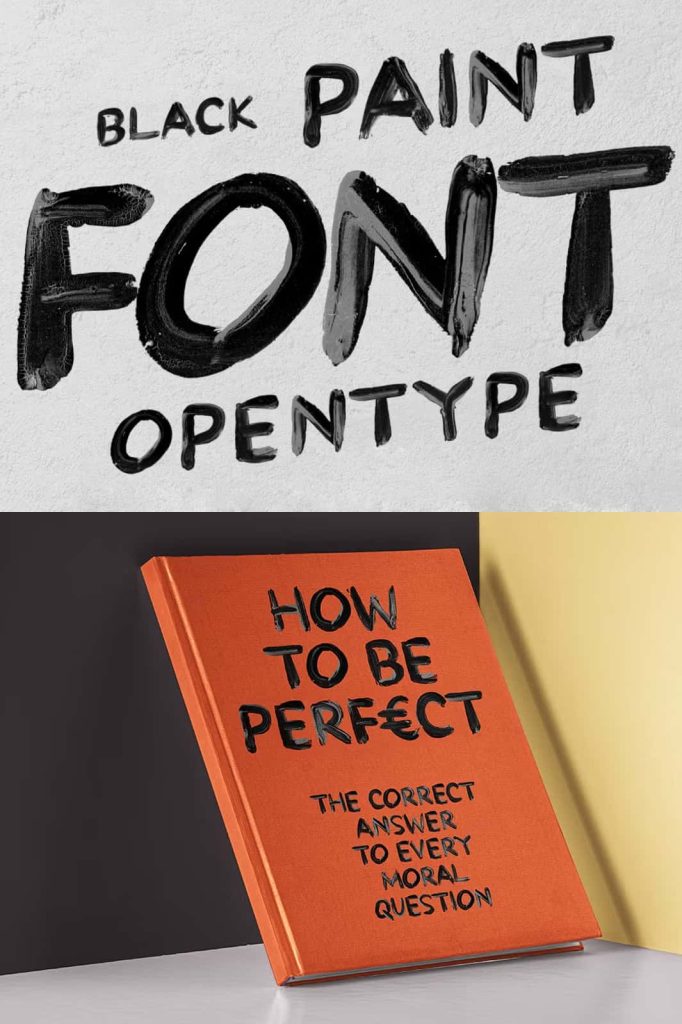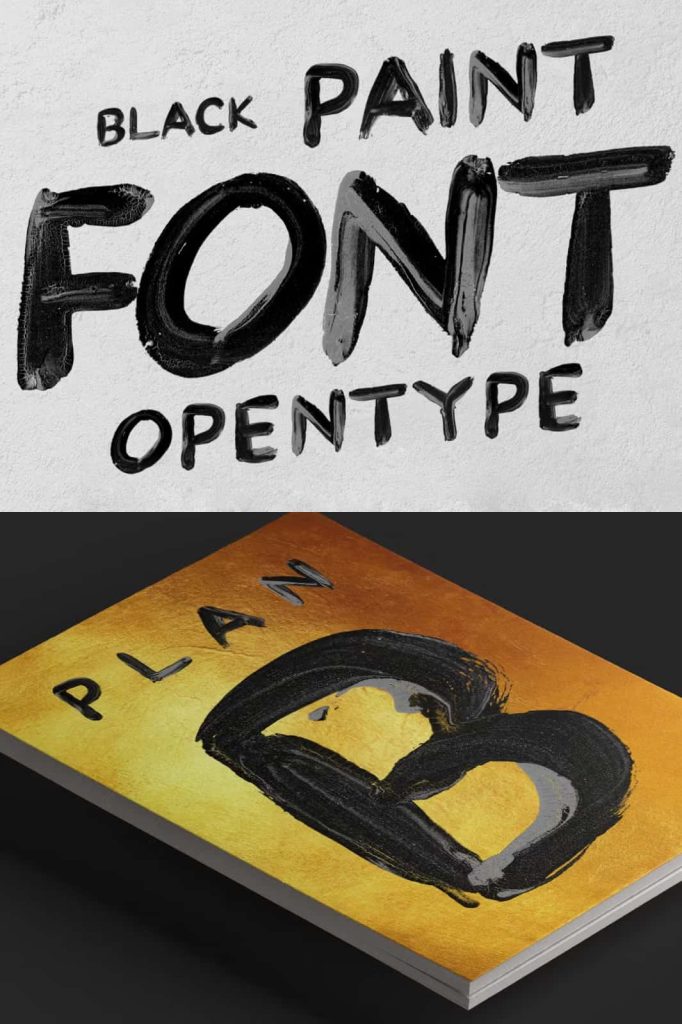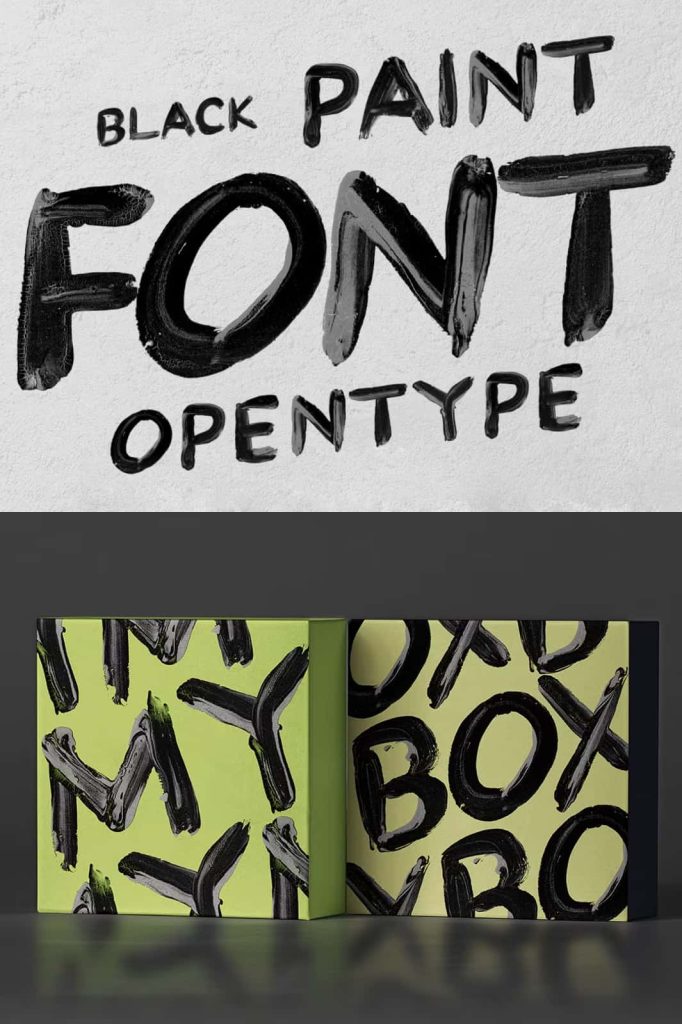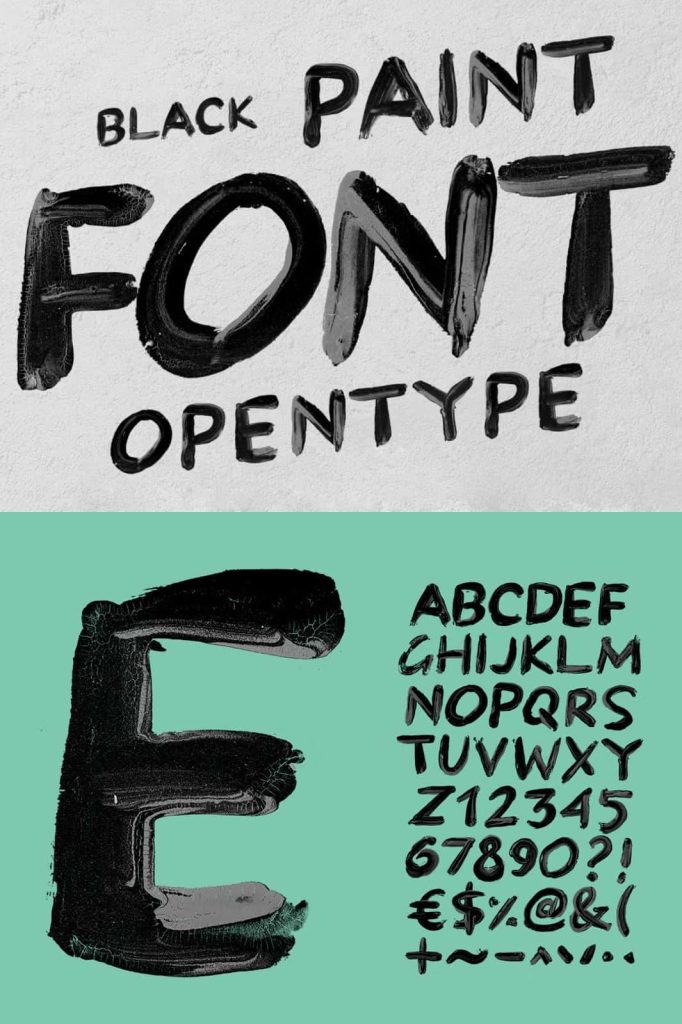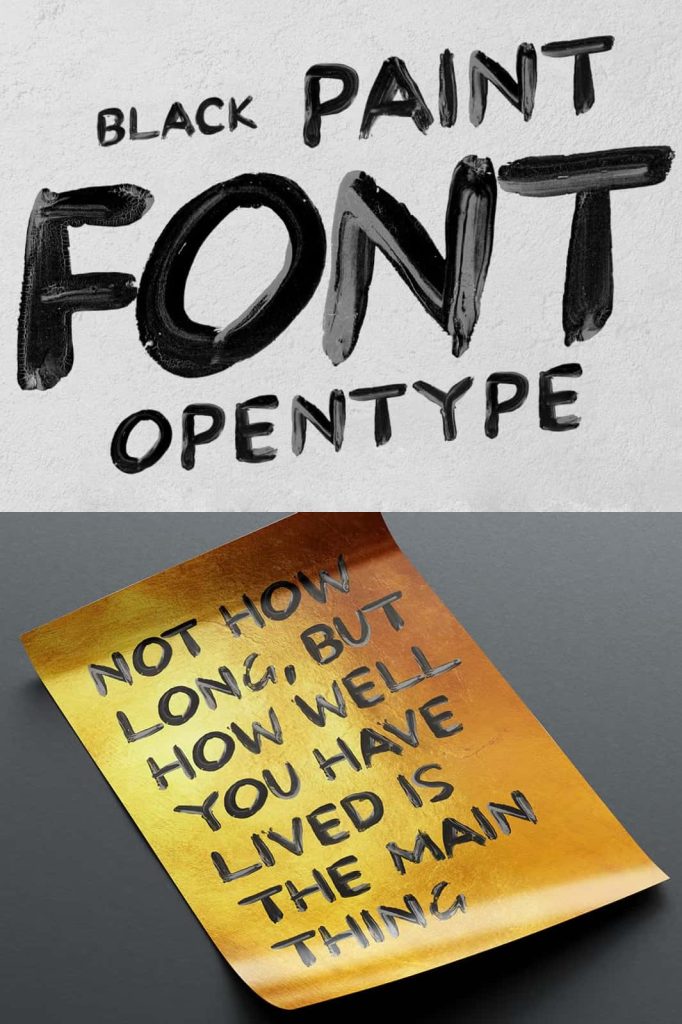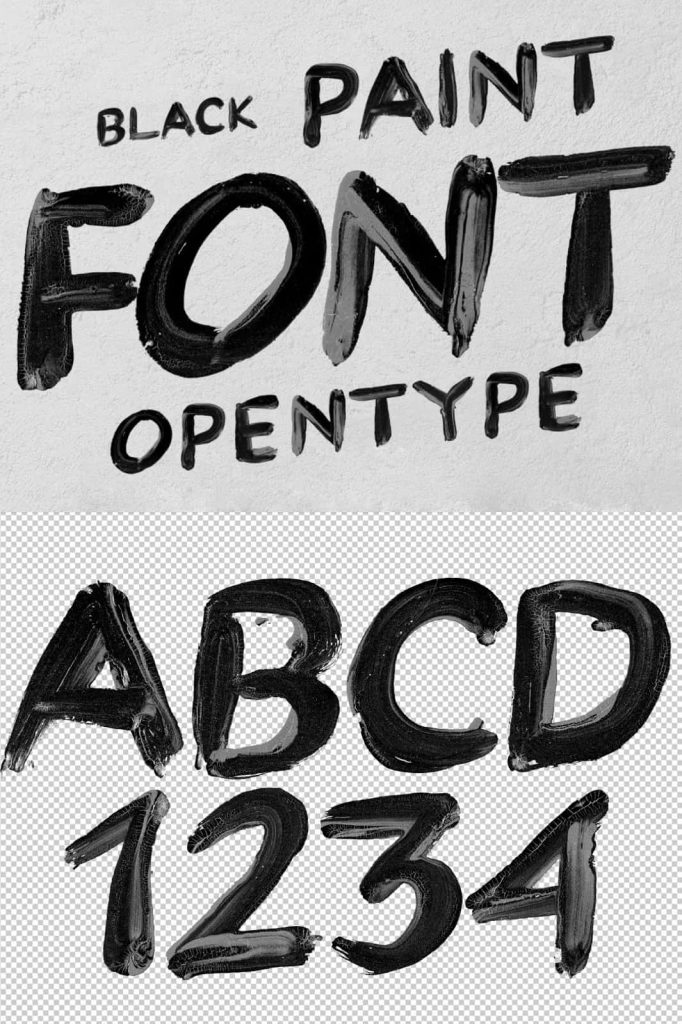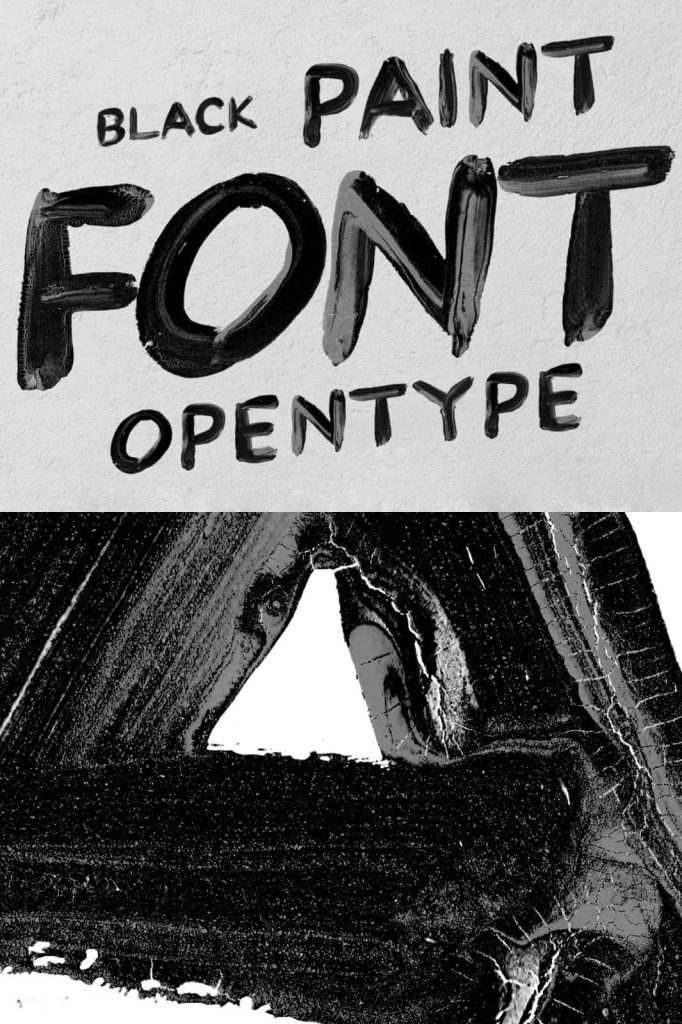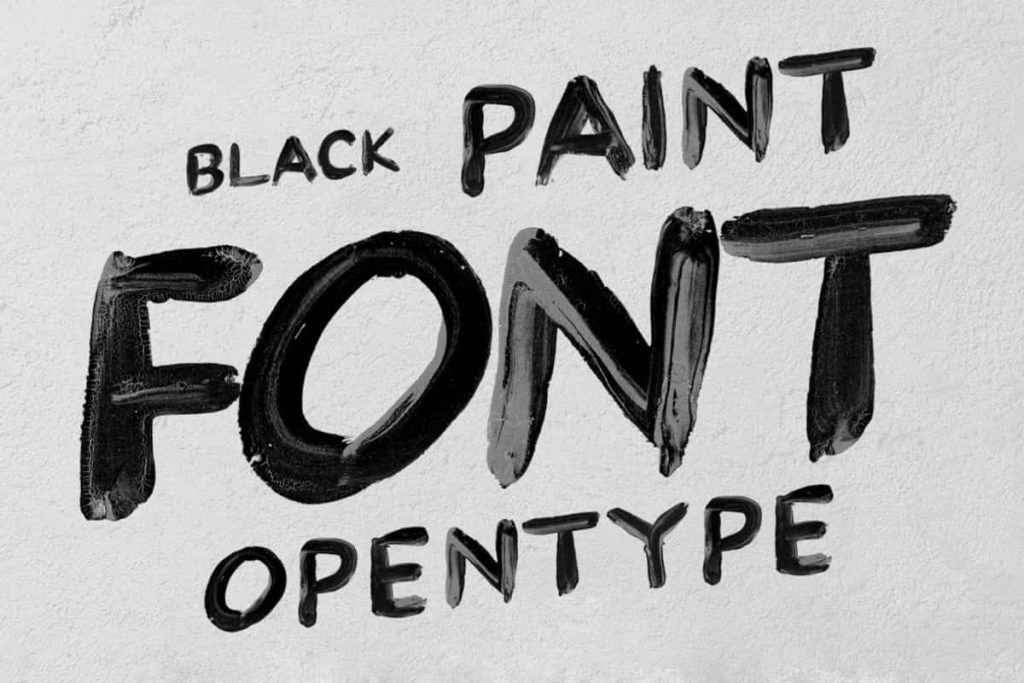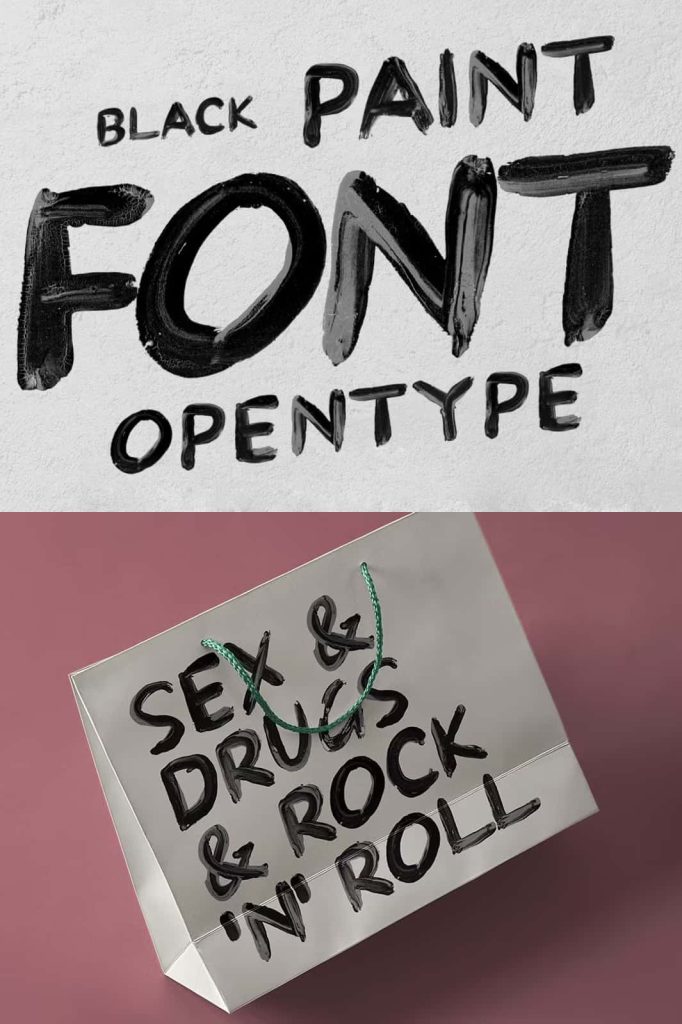
Black Paint SVG Font: High-Definition Painted Typography with Bold Impact
Black Paint SVG Font is a powerful and expressive OpenType-SVG typeface designed to deliver bold visual impact through realistic painted letterforms. Crafted in high definition, this font captures the raw texture and energy of hand-painted strokes, allowing designers to create eye-catching typography that feels authentic, artistic, and dynamic. Every character reflects the intensity of real paint applied with confidence and motion.
High-Definition OpenType-SVG Technology
This font uses advanced OpenType-SVG technology to preserve rich detail, texture, and color depth within each glyph. Unlike traditional vector fonts, the Black Paint SVG Font maintains the natural variation and organic edges of real paint strokes. With a draw height of roughly 800 pixels, the font delivers sharp clarity and impressive resolution, making it ideal for high-impact display use.
The high-definition structure ensures that each letter appears crisp and detailed at large sizes. This makes the font especially effective for headlines, posters, banners, album covers, and digital artwork where visual presence matters. Designers can rely on the font to maintain its painted character without losing quality or definition.
Complete Character Set for Creative Freedom
The Black Paint SVG Font includes a full set of uppercase characters, numerals, and basic punctuation. Each glyph is carefully crafted to maintain consistency while preserving the spontaneous feel of hand-painted lettering. The uppercase-only design reinforces strength and clarity, helping messages stand out with authority and confidence.
All letters and glyphs included in the font are visible in the preview, allowing designers to understand exactly what they are working with before use. This transparency supports efficient design decisions and ensures predictable results across different creative applications.
Bold Expression for Modern Design Projects
This font excels in projects that demand strong expression and artistic impact. Branding, advertising, packaging, and promotional materials benefit from the bold texture and expressive movement of painted typography. The Black Paint SVG Font helps brands communicate energy, creativity, and authenticity through visually striking letterforms.
In digital design, the font adds dramatic emphasis to social media graphics, website headers, and marketing visuals. Its painted style breaks away from clean and minimal typography, making it ideal for campaigns that aim to feel raw, expressive, and emotionally engaging.
Designed for Display and Artistic Use
The Black Paint SVG Font is optimized for display purposes where large-scale typography takes center stage. The detailed paint texture shines best in headlines, titles, and short phrases rather than long paragraphs. Designers can use it strategically to highlight key messages, slogans, or calls to action.
A Statement Font for Bold Visual Storytelling
Black Paint SVG Font transforms typography into a visual statement. Its high-definition painted characters add emotion, texture, and intensity to creative projects, helping designs stand out in competitive visual environments. The font encourages designers to embrace boldness and experimentation while maintaining clarity and structure.
For creatives seeking a high-definition SVG font that delivers raw paint texture and powerful visual impact, Black Paint SVG Font offers a compelling solution. It combines modern font technology with expressive hand-painted style to support striking, memorable design work.